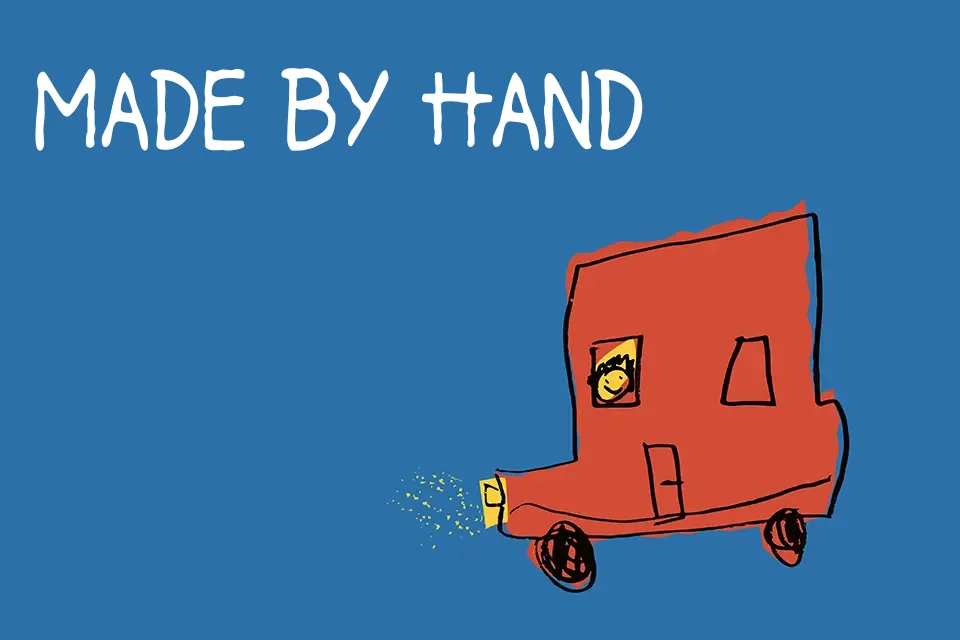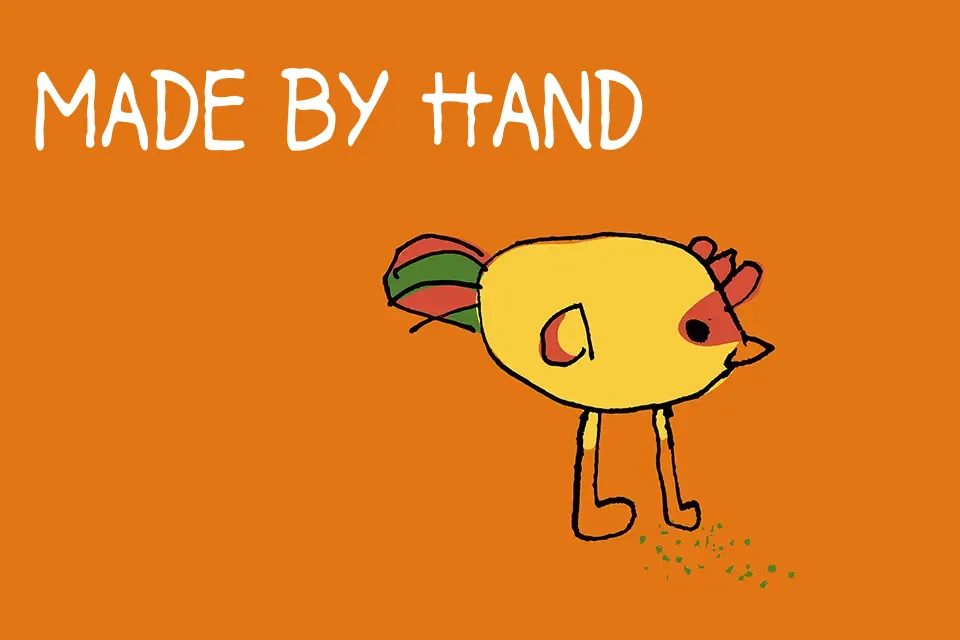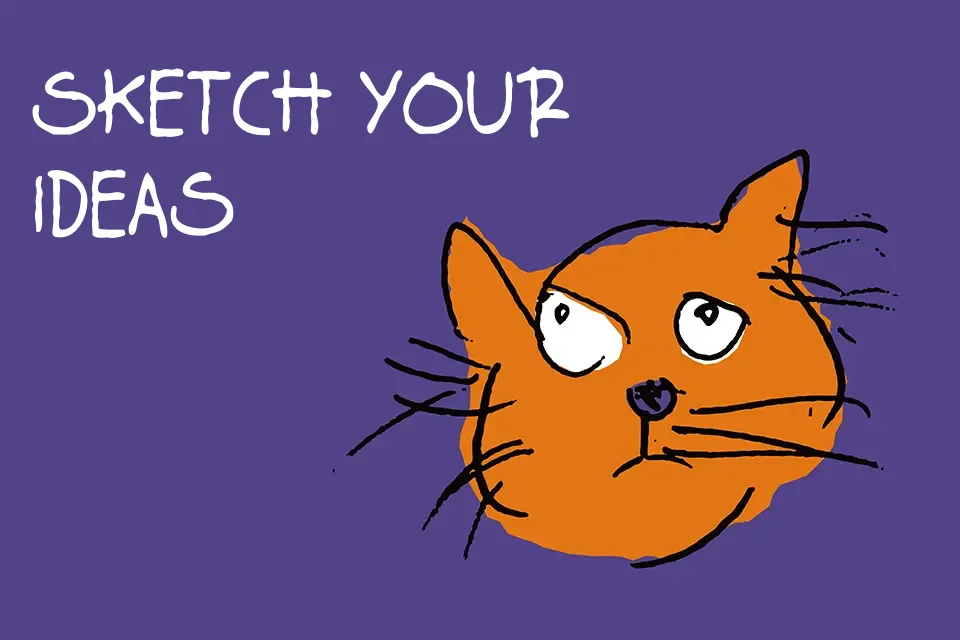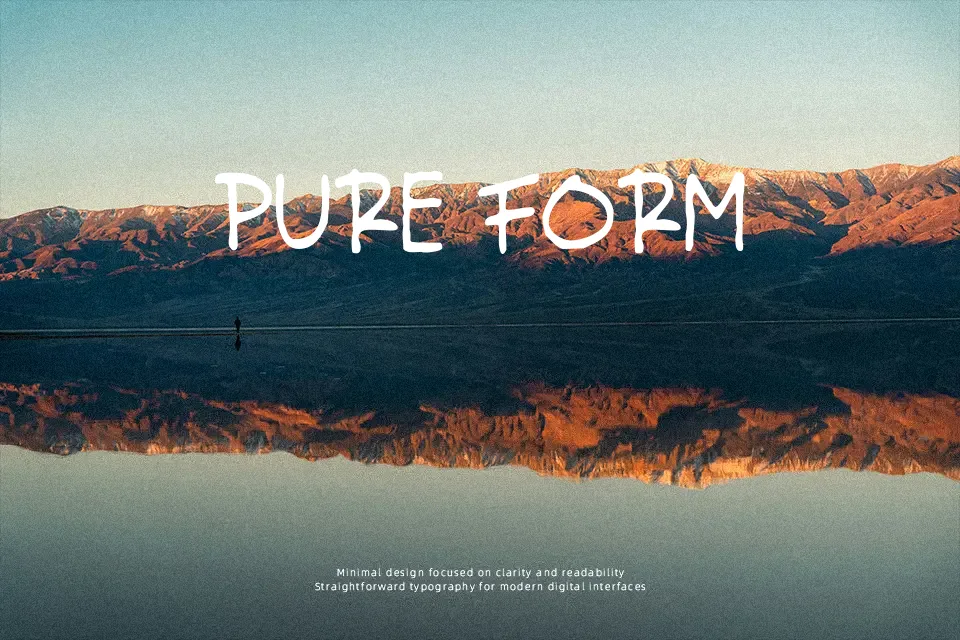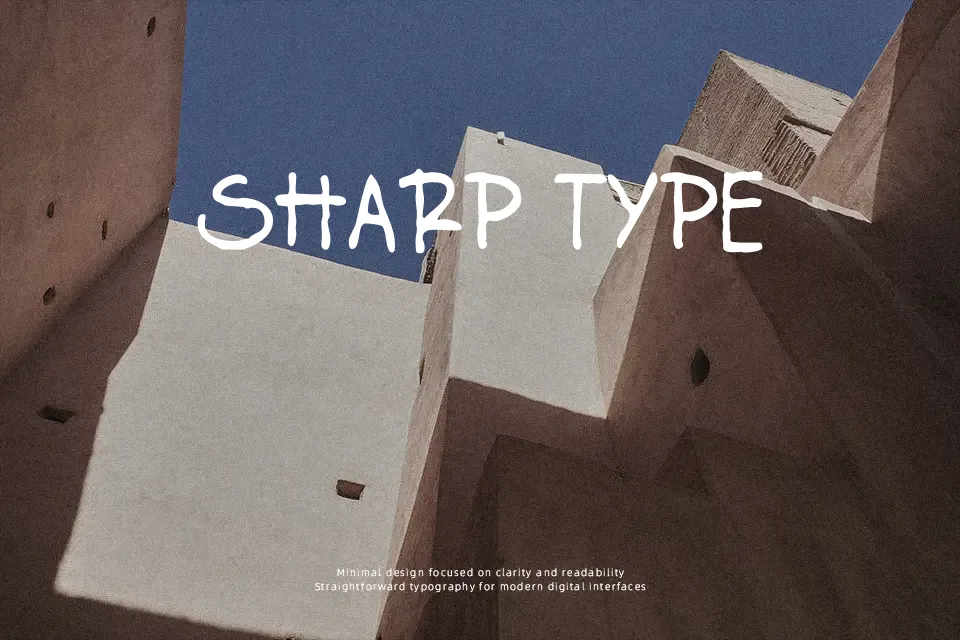
Silent Room Font
Silent Room Font presents a relaxed comic style defined by bouncy baselines, slightly softened terminals, and asymmetric letter weights. The letterforms exhibit moderate stroke contrast with casual proportions that give titles an engaging, hand-crafted rhythm. Open spacing between individual glyphs prevents tighter character clusters from colliding during headline use. This design functions effectively across animated title sequences, youth apparel graphics, stickers, and promotional social media banners. However, the irregular stroke alignment and decorative rhythm make the typeface unsuitable for lengthy editorial paragraphs or compact user interface captions where consistent geometry is necessary for sustained reading comfort.
Best For: children’s book title pages, comic strip dialogue headers, animated video title graphics, playful product packaging
Not Ideal For: long paragraph text, corporate annual reports, small mobile interface captions, legal agreements
Perfect for headline, kids, and packaging, with a creative and comic style.